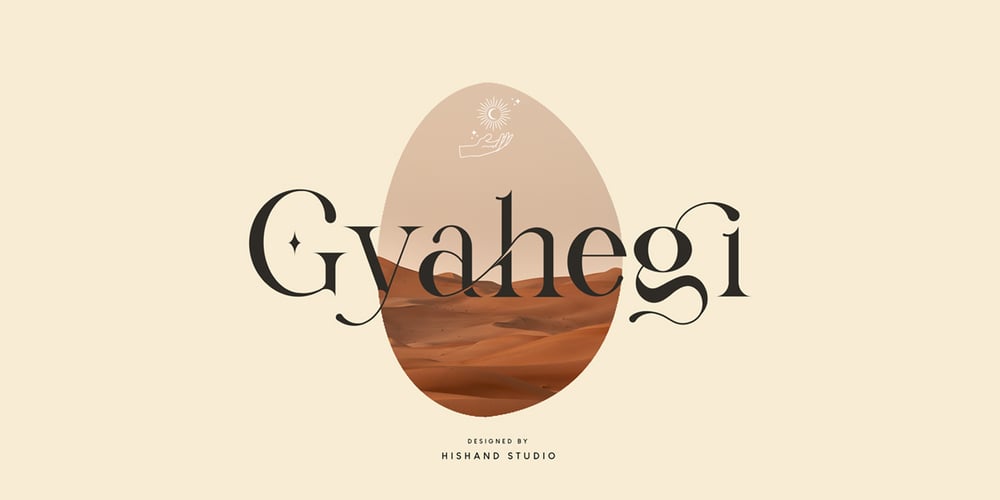
Gyahegi Font Family was designed by Putu Dody Permana and published by Hishand Studio. Gyahegi contains 3 styles and family package options. Gyahegi is modern serif font that look elegant and aesthetic with beautiful ligatures. It is good for Logo brand, advertisement, product packaging, social media post, clothing brand, magazine headers and many morecomplete with ligatures alternates regular italic icon kerning multilingual support